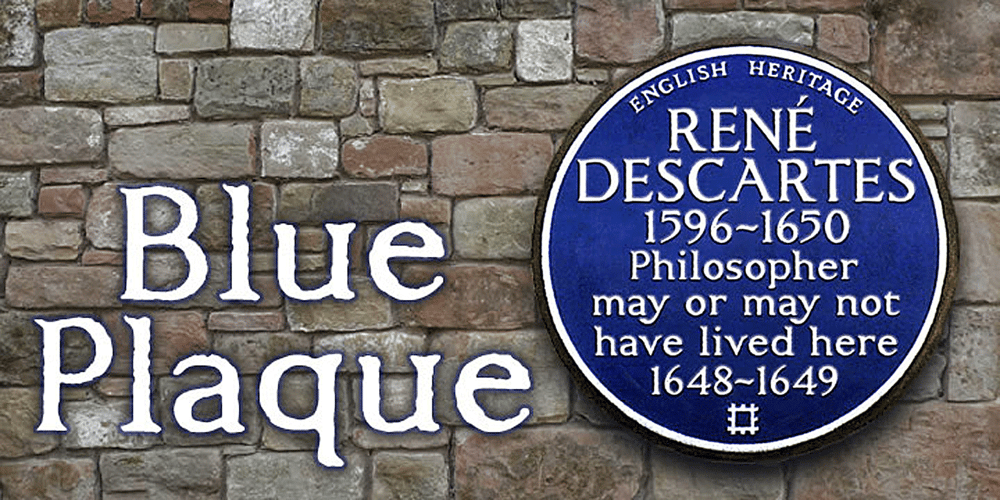
Blue Plaque Font Family was designed by Keith Bates and published by K-Type. Blue Plaque contains 1 styles and family package options. Blue Plaque is a distressed font that simulates the low relief, white-painted lettering on English Heritage plaques attached to buildings where famous people have lived. For creating mock plaques, a blank disk, with the English Heritage title at the top and the logo at the bottom, is included at the brace left { keystroke, and also at the section § keystroke. A blank plaque without the English Heritage title and logo is included at the bar | keystroke. A distressed English Heritage logo is included at the asterisk * keystroke. he outer ring of the blue plaques, which is glazed in dark grey, is included at the brace right } keystroke, and also at the plusminus ± keystroke.Photoshop’s Outer Bevel Layer Style is perfect for adding a relief appearance to the letters.Buyers are welcome to request a 1000px jpeg image of a blank blue plaque by emailing K-Type directly https://www.k-type.com/contact/